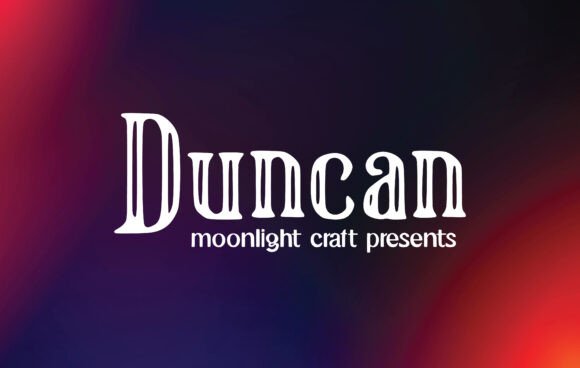
Duncan Font: Elevate Your Creative Ideas with this Lovely and Beautiful Typeface
Are you looking for a font that can take your creative ideas to the next level? Look no further than the Duncan Font. This lovely and beautiful font is designed to help you create eye-catching logos, branding, and quotes that will leave a lasting impression on your audience. In this article, we’ll explore the features and benefits of the Duncan Font, and why it’s the perfect choice for your design needs.
What is Duncan Font?
Duncan Font is a modern and elegant typeface that is perfect for creative projects. Its unique design and stylish curves make it stand out from other fonts, and its versatility makes it suitable for a wide range of applications. Whether you’re designing a logo, creating a brand identity, or crafting a quote, the Duncan Font is sure to impress.
Key Features of Duncan Font
- Unique Design: The Duncan Font features a unique and stylish design that sets it apart from other fonts.
- Elegant Curves: The font’s elegant curves and lines make it perfect for creating sophisticated and eye-catching designs.
- Versatile: The Duncan Font is versatile and can be used for a wide range of applications, from logos and branding to quotes and more.
- Easy to Read: The font is easy to read, making it perfect for body text and headlines.
Benefits of Using Duncan Font
So, why choose the Duncan Font for your design needs? Here are just a few benefits of using this lovely and beautiful font:
- Stand Out from the Crowd: The Duncan Font is unique and stylish, making it perfect for designs that need to stand out from the crowd.
- Professional Look: The font’s elegant curves and lines give it a professional look that’s perfect for businesses and brands.
- Time-Saving: With the Duncan Font, you can create professional-looking designs in no time, saving you time and effort.
How to Use Duncan Font
Using the Duncan Font is easy. Here are a few ways you can use this lovely and beautiful font:
- Logos and Branding: Use the Duncan Font to create eye-catching logos and branding that will leave a lasting impression on your audience.
- Quotes and Headlines: Use the font to create stylish and eye-catching quotes and headlines that will grab attention.
- Body Text: The Duncan Font is also suitable for body text, making it perfect for longer designs and documents.
Duncan Font vs. Other Fonts
So, how does the Duncan Font compare to other fonts on the market? Here are a few key differences:
- Unique Design: The Duncan Font has a unique design that sets it apart from other fonts.
- Elegant Curves: The font’s elegant curves and lines make it more stylish and sophisticated than other fonts.
- Versatility: The Duncan Font is more versatile than other fonts, making it suitable for a wide range of applications.
In conclusion, the Duncan Font is a lovely and beautiful font that has the potential to take your creative ideas to the highest level. Its unique design, elegant curves, and versatility make it perfect for creating eye-catching logos, branding, and quotes. With its ease of use and professional results, the Duncan Font is a must-have for designers and non-designers alike.